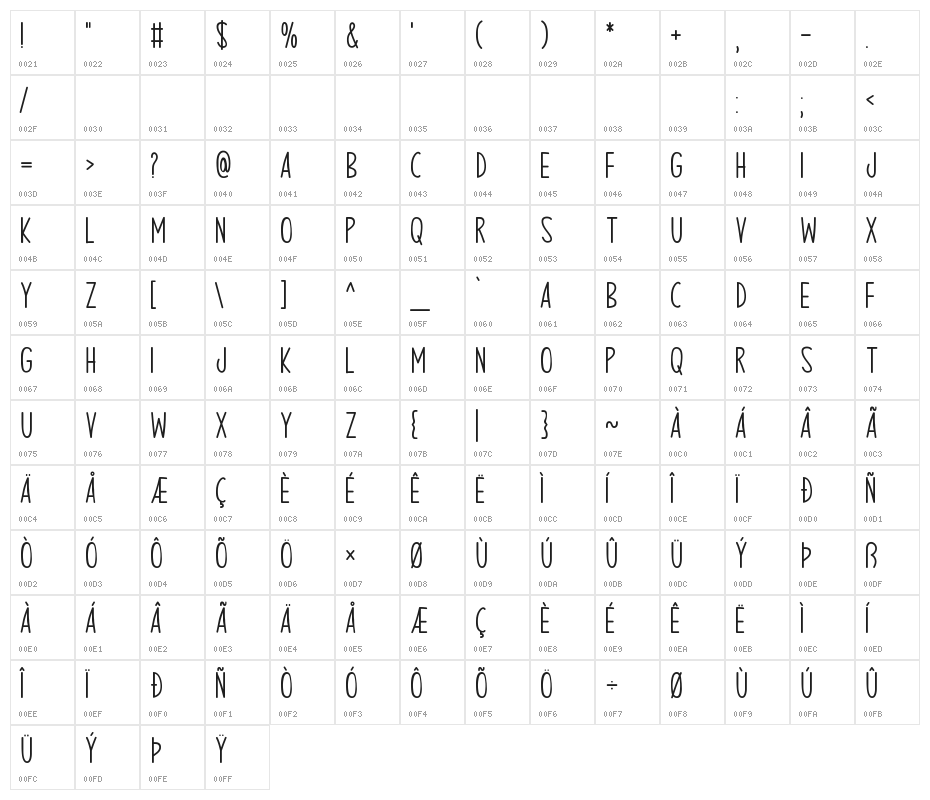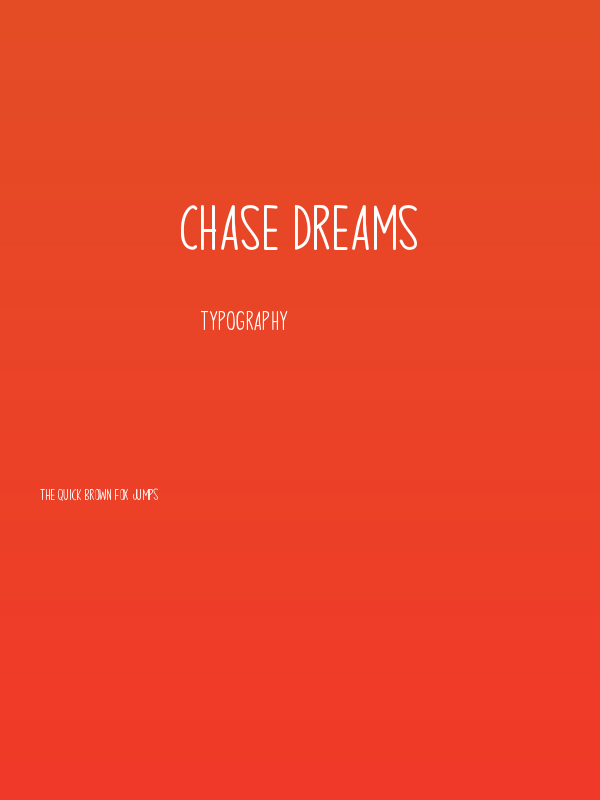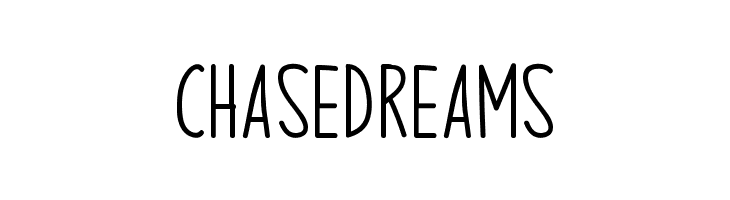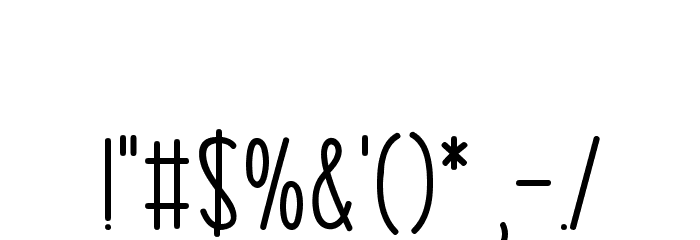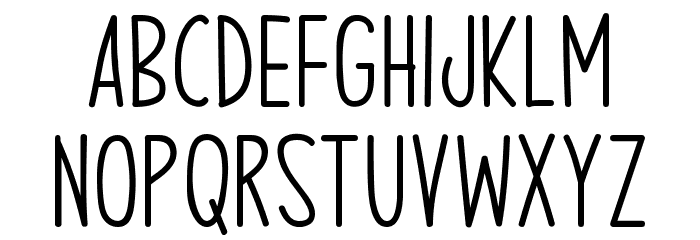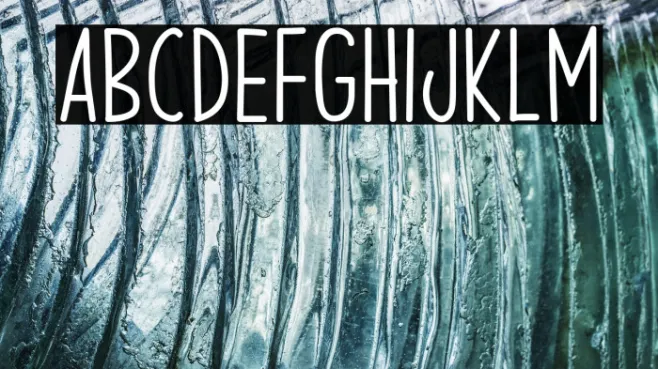
Chase Dreams Font
Chase Dreams Description
A playful, tall, and narrow sans-serif font with rounded ends and consistent stroke width, giving it a friendly and handwritten appearance. The characters are evenly spaced and have a casual, approachable feel.
| Overall Style | Playful, Casual, Modern |
| Use Case | Headlines, Posters, Informal Branding |
| Proposed Projects | Children's books, greeting cards, posters, informal branding, social media graphics. |